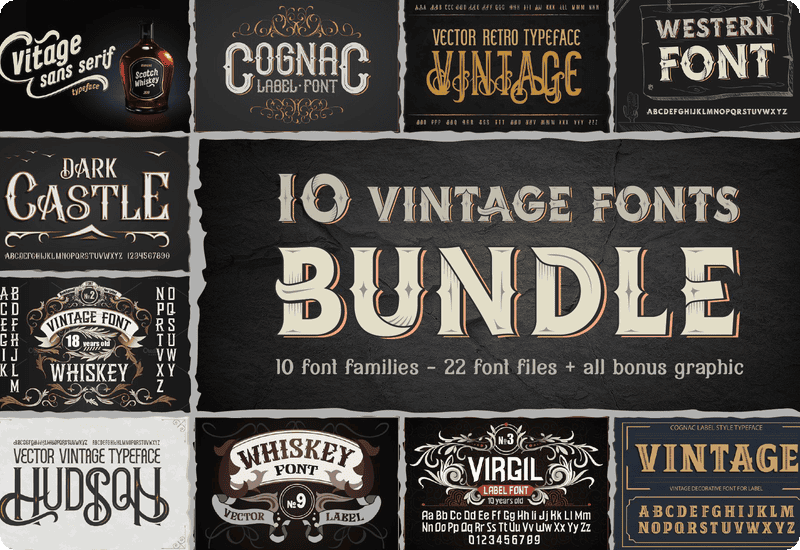
Transform your design projects with the 10 Vintage Font Families Bundle, a must-have collection of premium vintage-style fonts. Whether you’re creating labels, logos, posters, or branding materials, this bundle offers a versatile and timeless aesthetic that will captivate your audience. With 10 distinct font families and 22 unique font files, you’ll have all the tools you need to craft visually stunning and memorable designs.
Each font in this bundle is carefully crafted to exude vintage charm and sophistication. From bold and eye-catching uppercase fonts perfect for labels and packaging to elegant sans serif options for more refined projects, this collection caters to a wide range of creative needs. Plus, with a premium commercial license included, you can confidently use these fonts for both personal and business projects without any restrictions.
10 Premium Font Families
This bundle includes ten high-quality font families, each offering its unique style and character. You’ll have access to 22 different font files to explore and experiment with, ensuring your creative possibilities are endless.
- Cognac – A bold vintage label font in uppercase only, perfect for crafting standout designs.
- DarkCastle – A striking vintage label font in OTF format, designed for bold branding.
- Hudson – Another standout OTF vintage label font, exclusively in uppercase for a strong impact.
- Vintage – A classic vintage label font with uppercase-only design.
- Vintage Style – A beautifully crafted vintage-style label font in uppercase.
- Vitage – Elegant sans serif OTF font for sophisticated and modern vintage projects.
- Virgil – A vintage OTF font with a timeless appeal.
- Western – Bold vintage label font for creating impactful designs, uppercase only.
- Whiskey – Classic OTF label font in uppercase, perfect for branding.
- Whiskey Style – A vintage-style font with a bold and captivating design.
Versatile Design Applications
Perfect for vintage-themed designs, branding, product labels, apparel, invitations, social media graphics, and more. Whether you’re a professional designer or a creative enthusiast, these fonts will help you achieve exceptional results.
Distinct Vintage Aesthetic
Capture the charm of yesteryear with bold, uppercase-only fonts ideal for labels and impactful typography. Fonts like Cognac, DarkCastle, and Whiskey Style are designed to stand out and leave a lasting impression.
Elegant Sans Serif Option
The bundle also includes Vitage, an elegant sans serif font that brings a modern touch to vintage-inspired designs. Its clean lines and refined aesthetic make it ideal for sophisticated branding projects.
Timeless Appeal
Vintage never goes out of style. This font bundle provides you with timeless design elements that will continue to resonate with audiences for years to come.